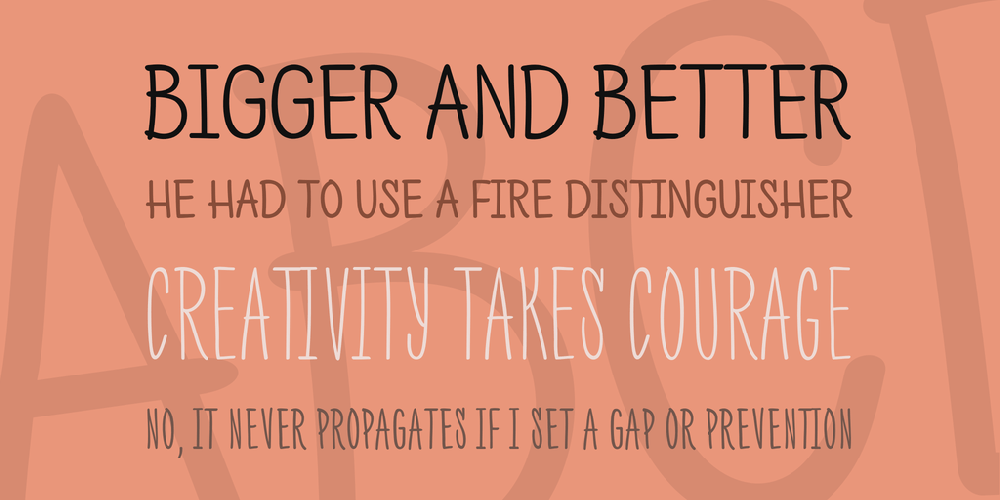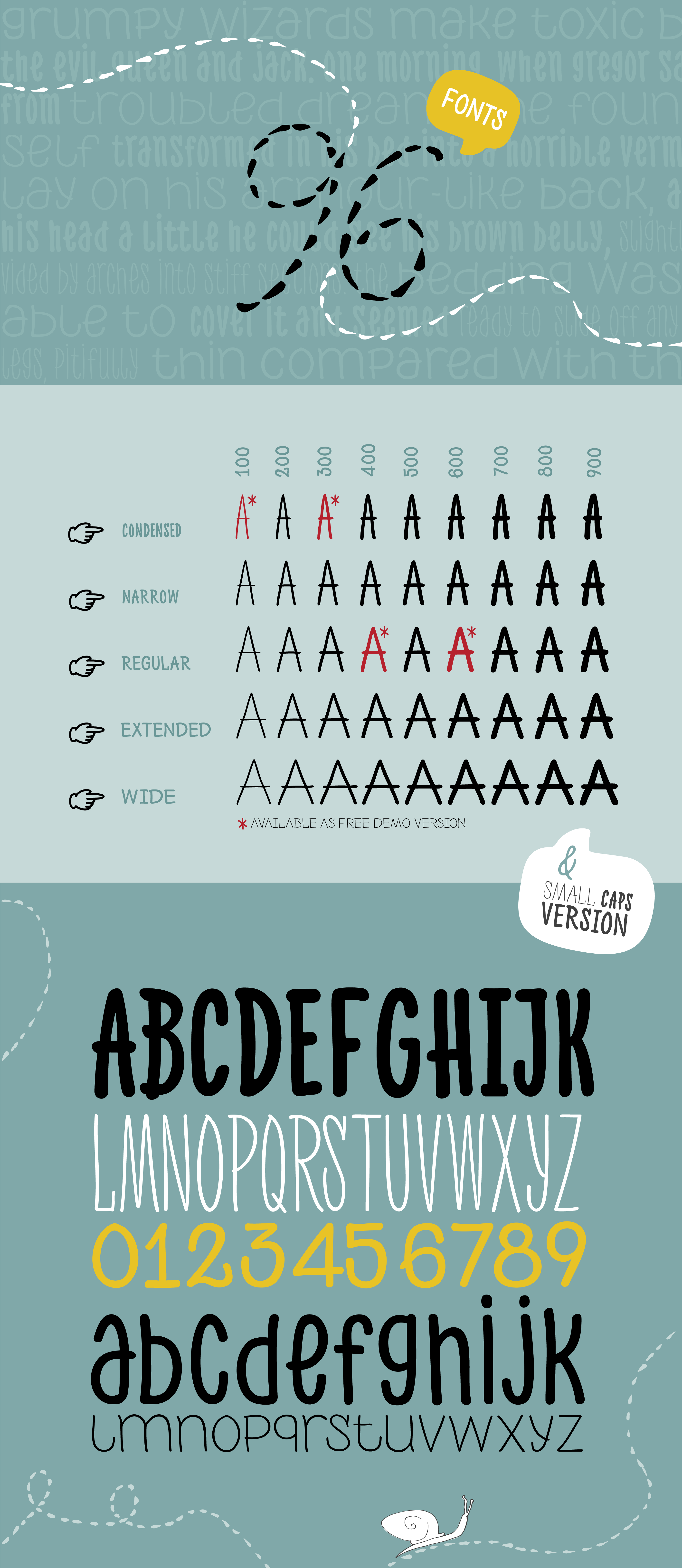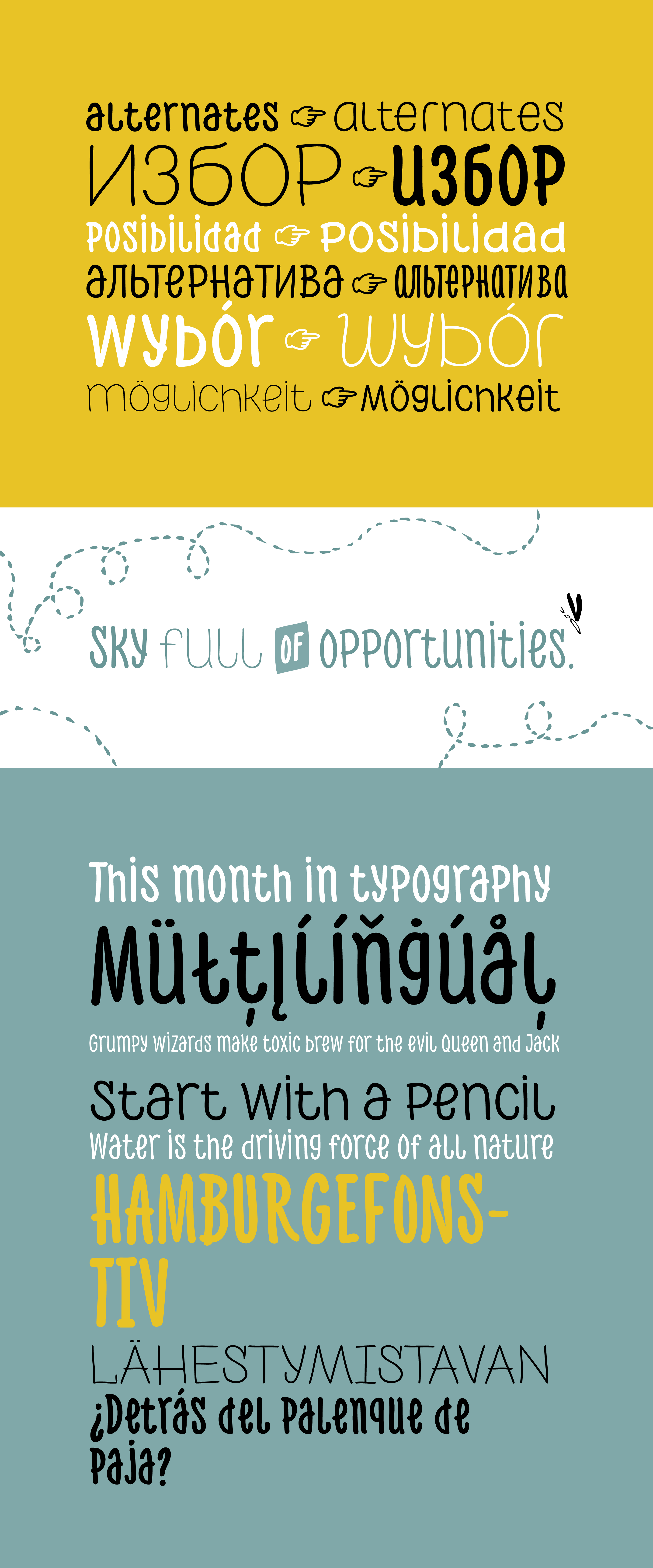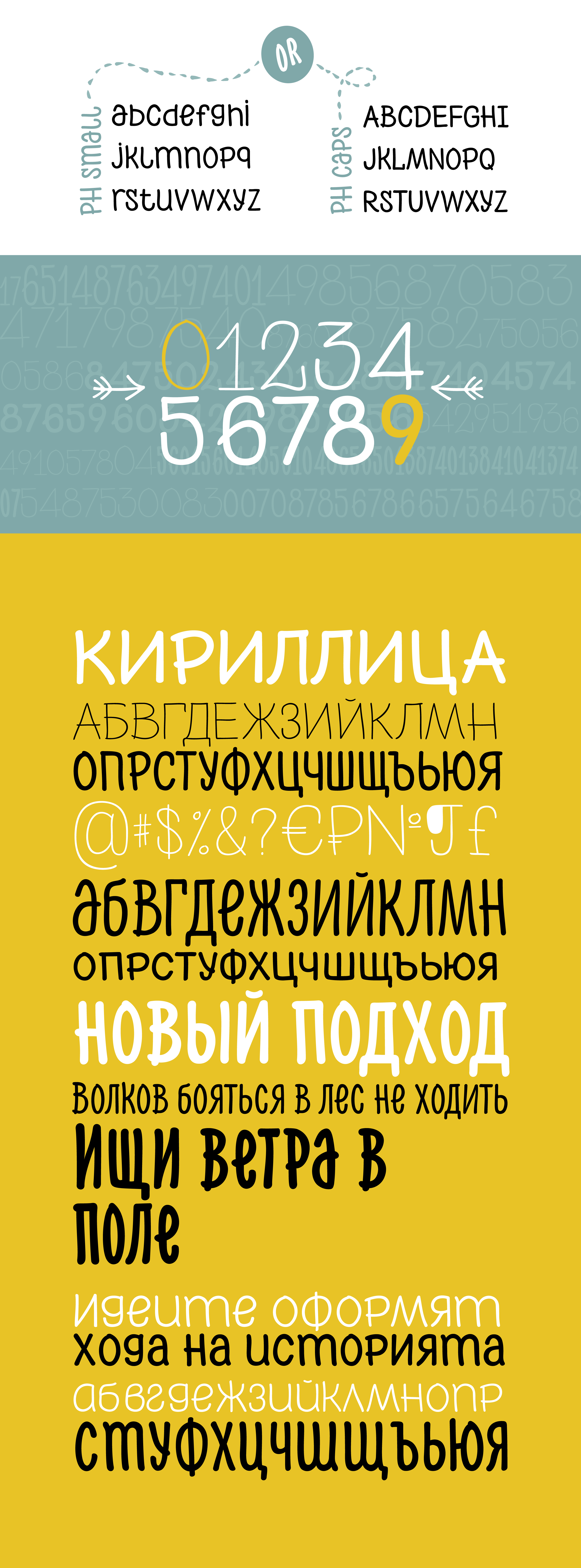
Ph Fonts
Ph Fonts. Ph from fontfabric is a multifaceted font system consisting of different font weights and types of condensation. Ph is a dingbat and hand display font family.
Making the web more beautiful, fast, and open through great typography Ph from fontfabric type foundry is a multifaceted font system consisting of different font weights and type of condensation. A set of ttf/otf oss fonts to be used in pdf creation or any other use case.
Free fonts often have not all characters and signs, and have no kerning pairs (avenue ↔ a venue, tea ↔ t ea). Ph from fontfabric is a multifaceted font system consisting of different font weights and types of condensation. Fontspring pays the highest royalties in the business to every designer.
Font name date file size; Ph from fontfabric type foundry ‘s display fonts is a multifaceted font system consisting of different font weights and type of condensation. Use the controls below to customize your text string and its appearance.
Ph is a dingbat and hand display font family. A set of ttf/otf oss fonts to be used in pdf creation or any other use case. Every font is added and categorized by a real person.